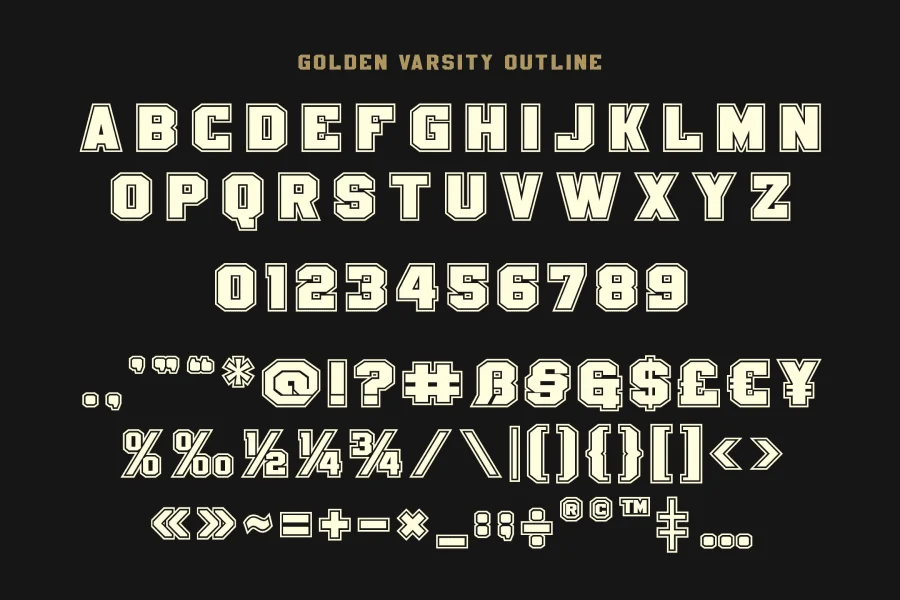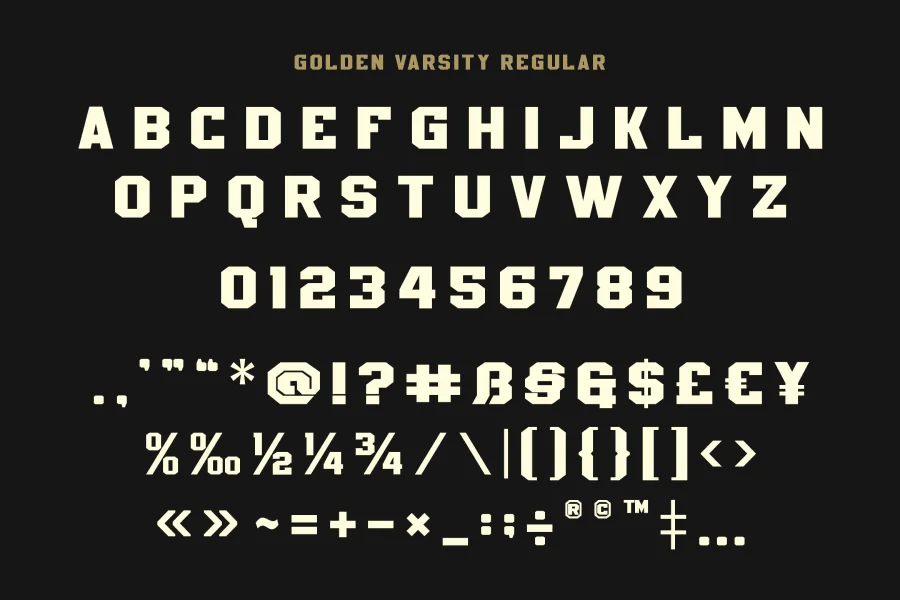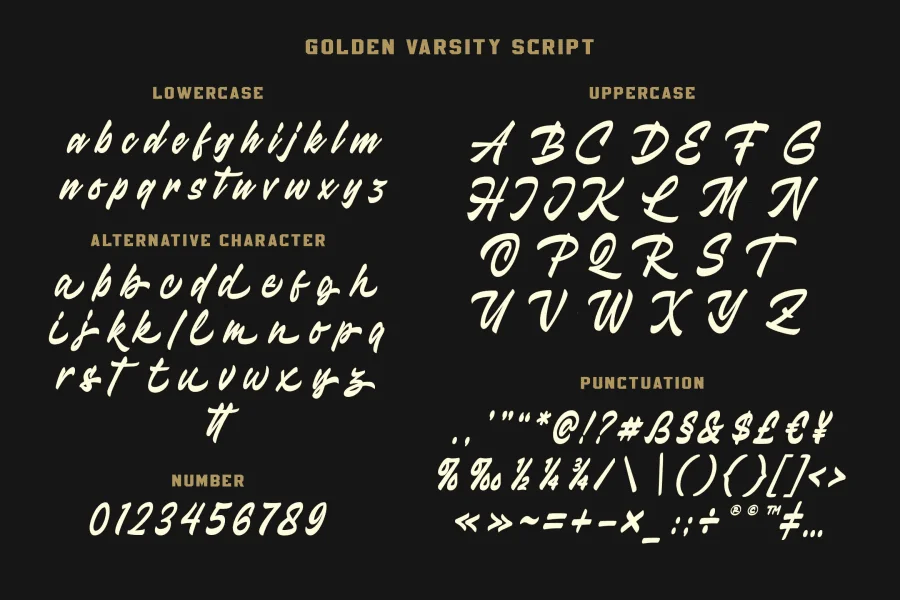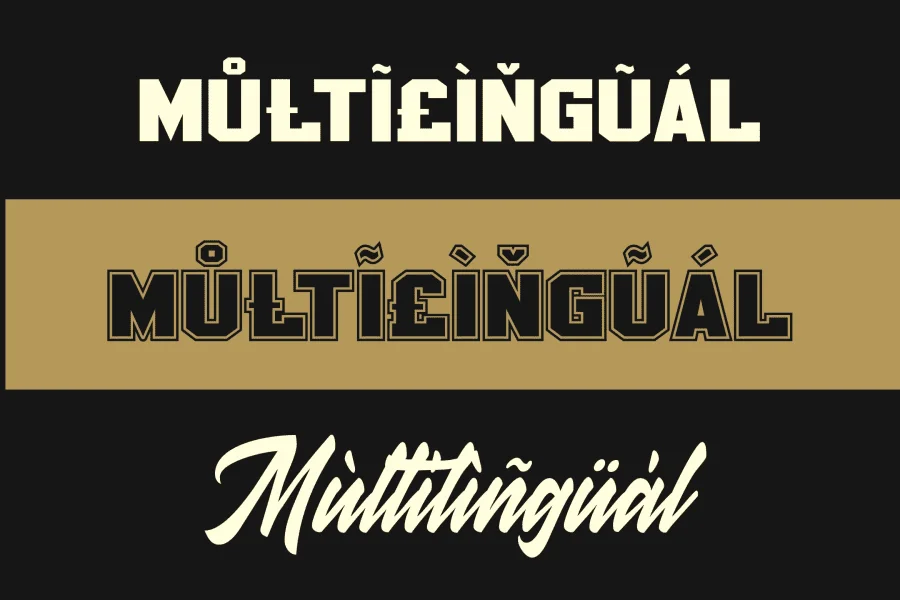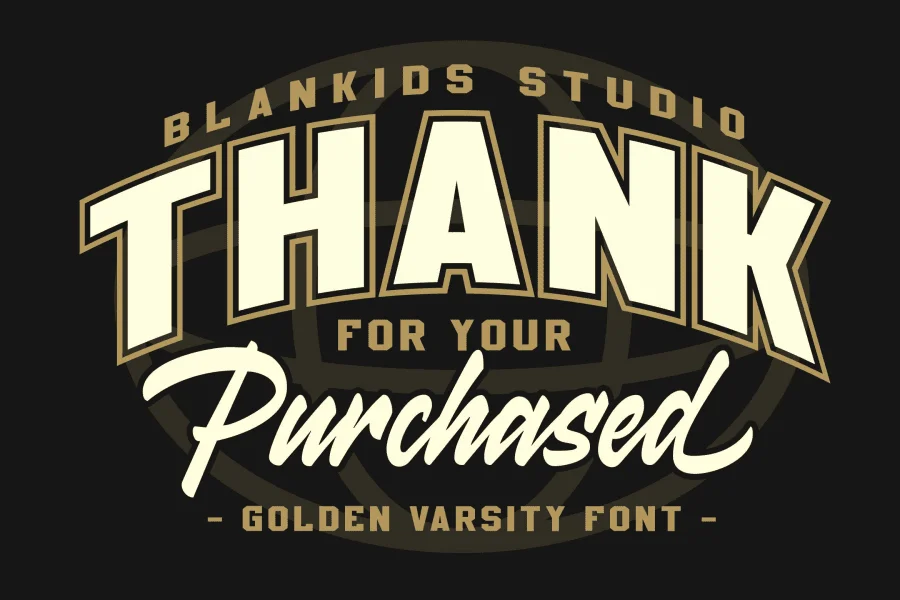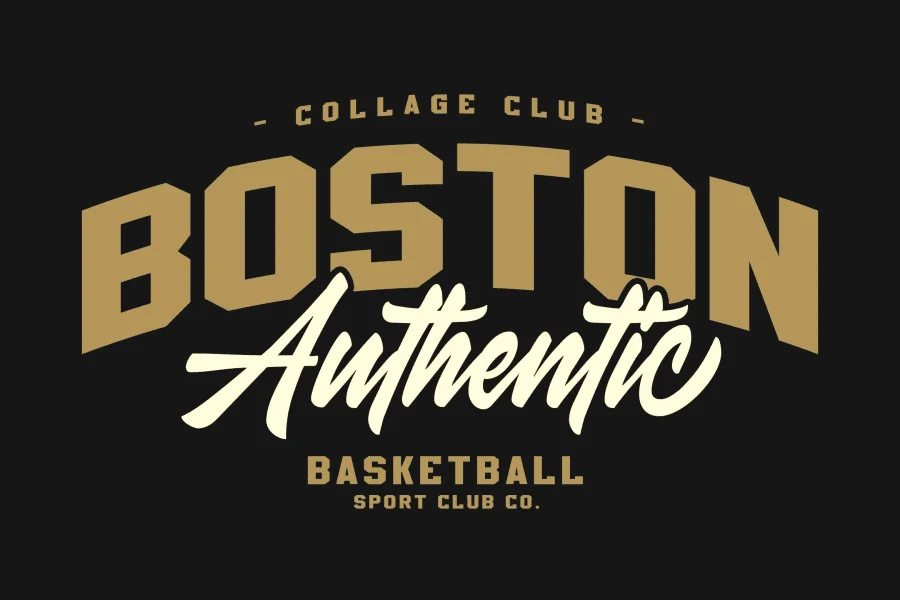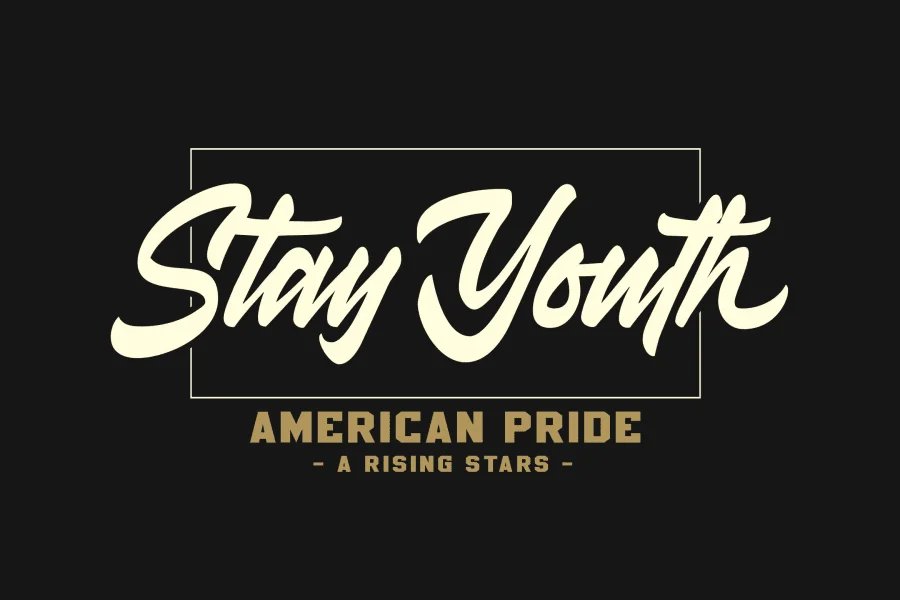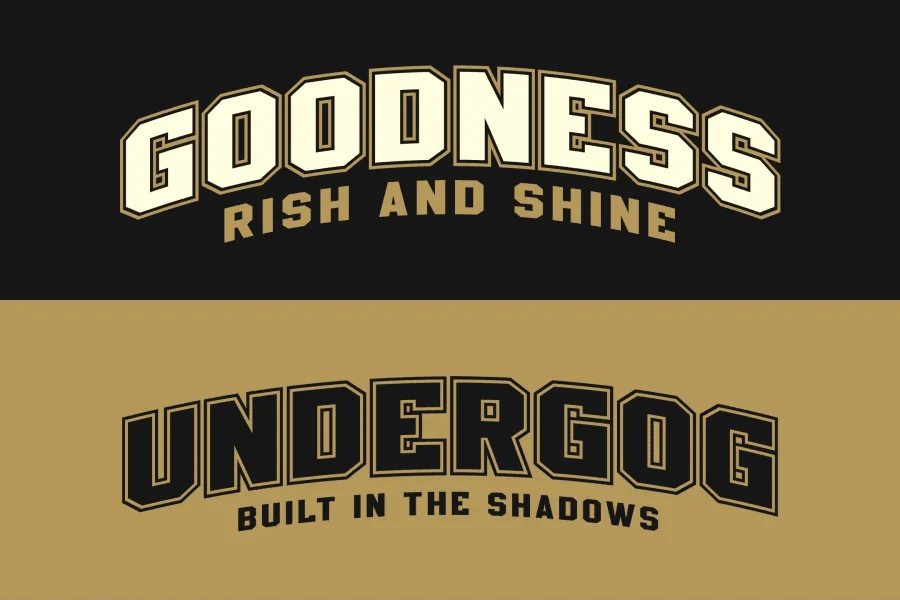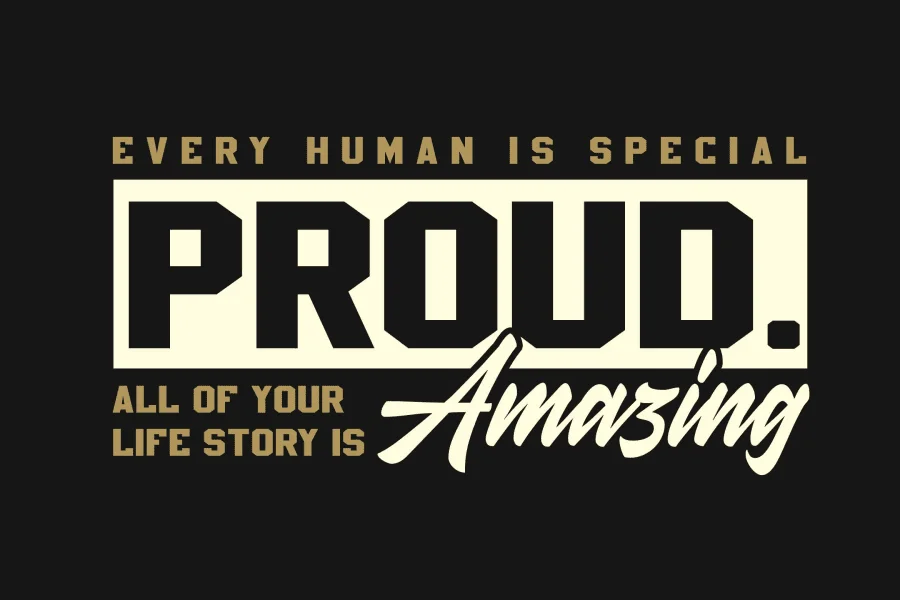
Hello, awesome people! This time, we have a new font called Golden Varsity a Sport Font Combination by Blankids Studio.
Golden Varsity a Sport Font Combination is made for any professional project branding, such as logotype, watermarks, poster, branding, promotions, product packaging, etc. Every letter has a college sporty and varsity style design. This font comes in 3 font combination.